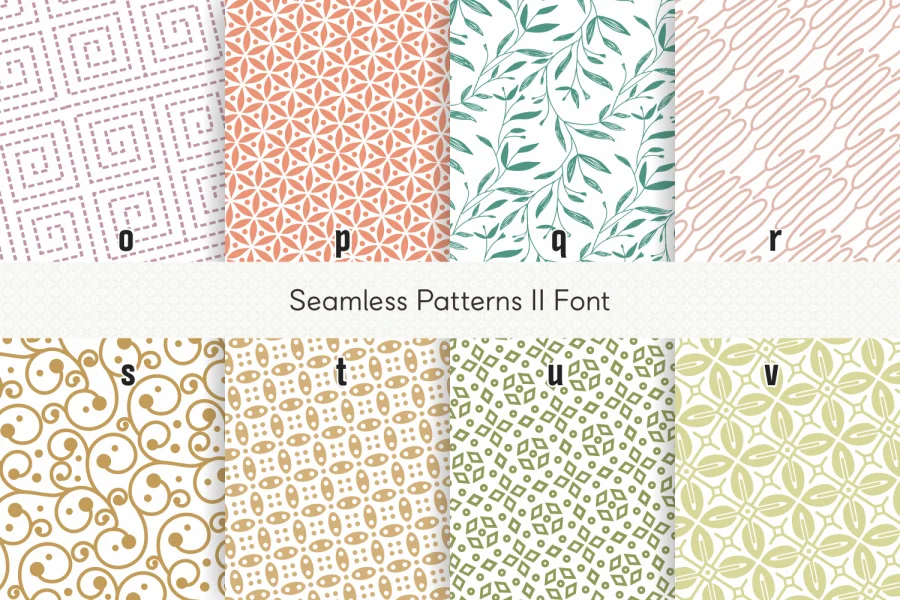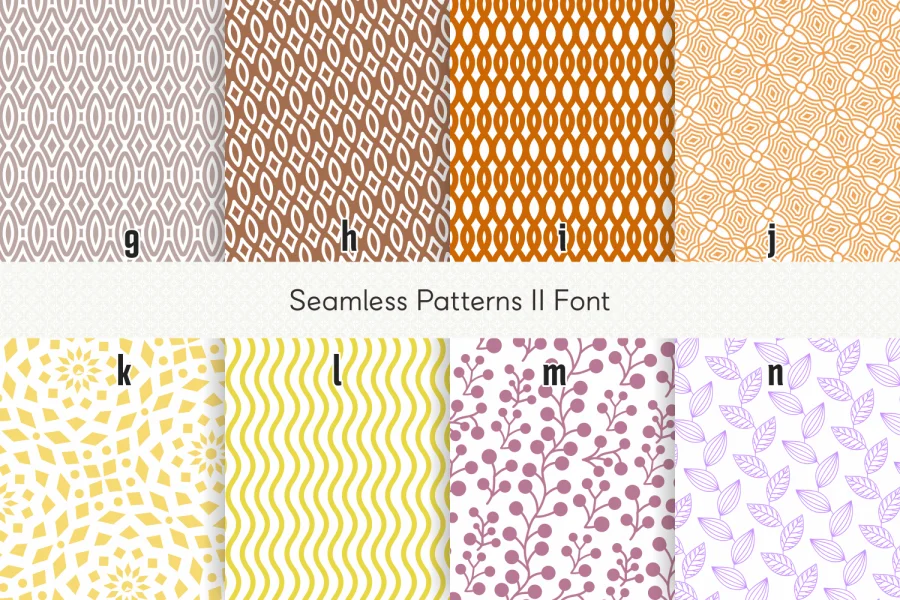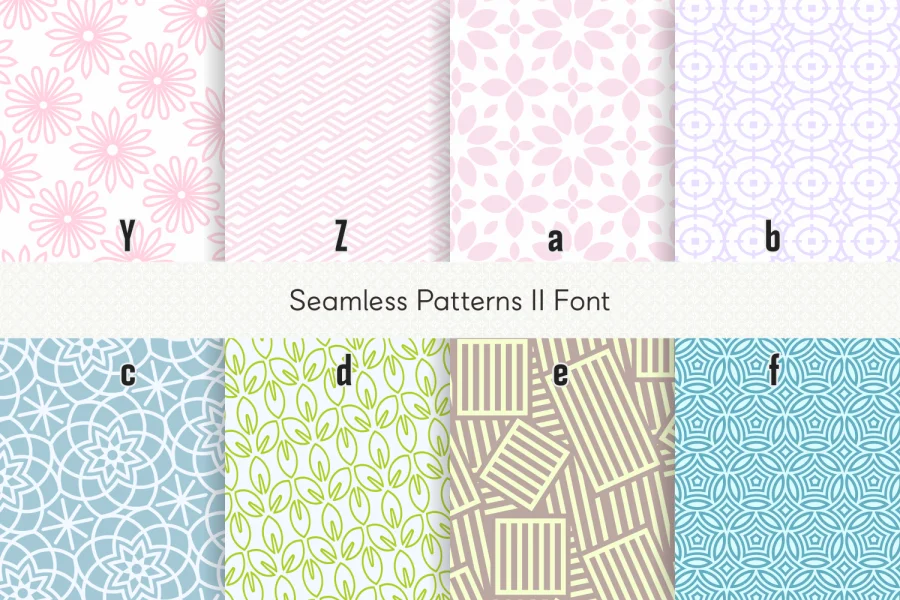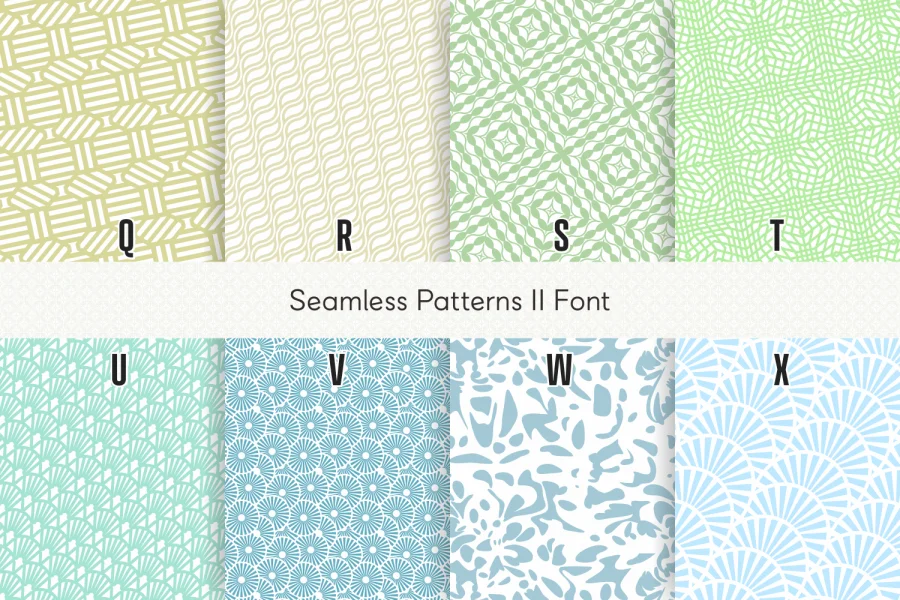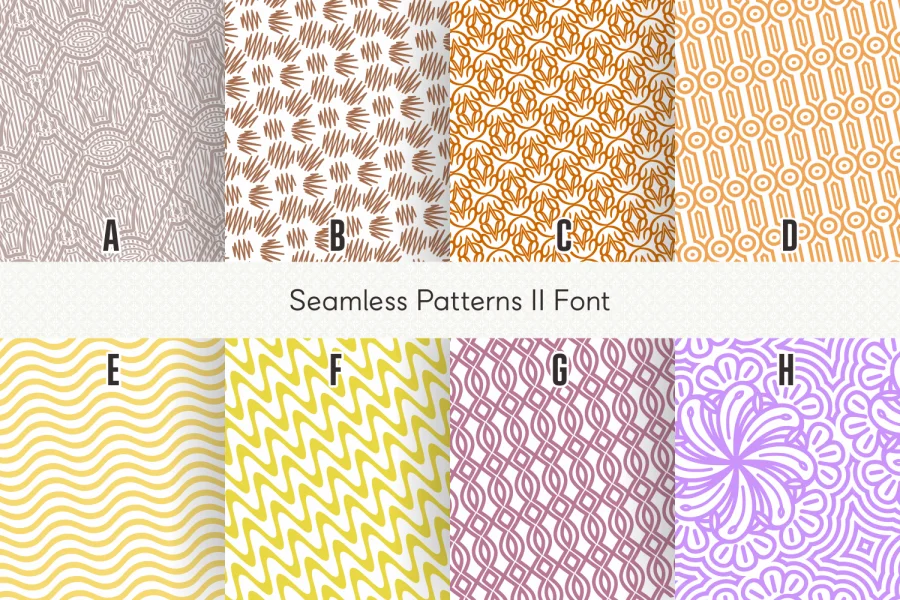
Now, with Seamless Patterns II Font, the new collection of seamless patterns font I made previously seamless patterns font I, you can easily create flowing awesome patterns. In this font, you are presented with 52 different kind of simple and decorative seamless patterns. You can use it in any kinds of design you want to add a touch of pattern, such as textile, product design, cover, box, clothing, or whatever.
To make the seamless patterns of this font, just type the same repeated letter, such AAAA or BBBB or GGGGG and so on [This font only works for 0-9, A-Z, and a-z]. Color the fonts as you normally do. You might convert the font pattern to vector and customize it as you want. Feel free to try it; It’s free for personal use.